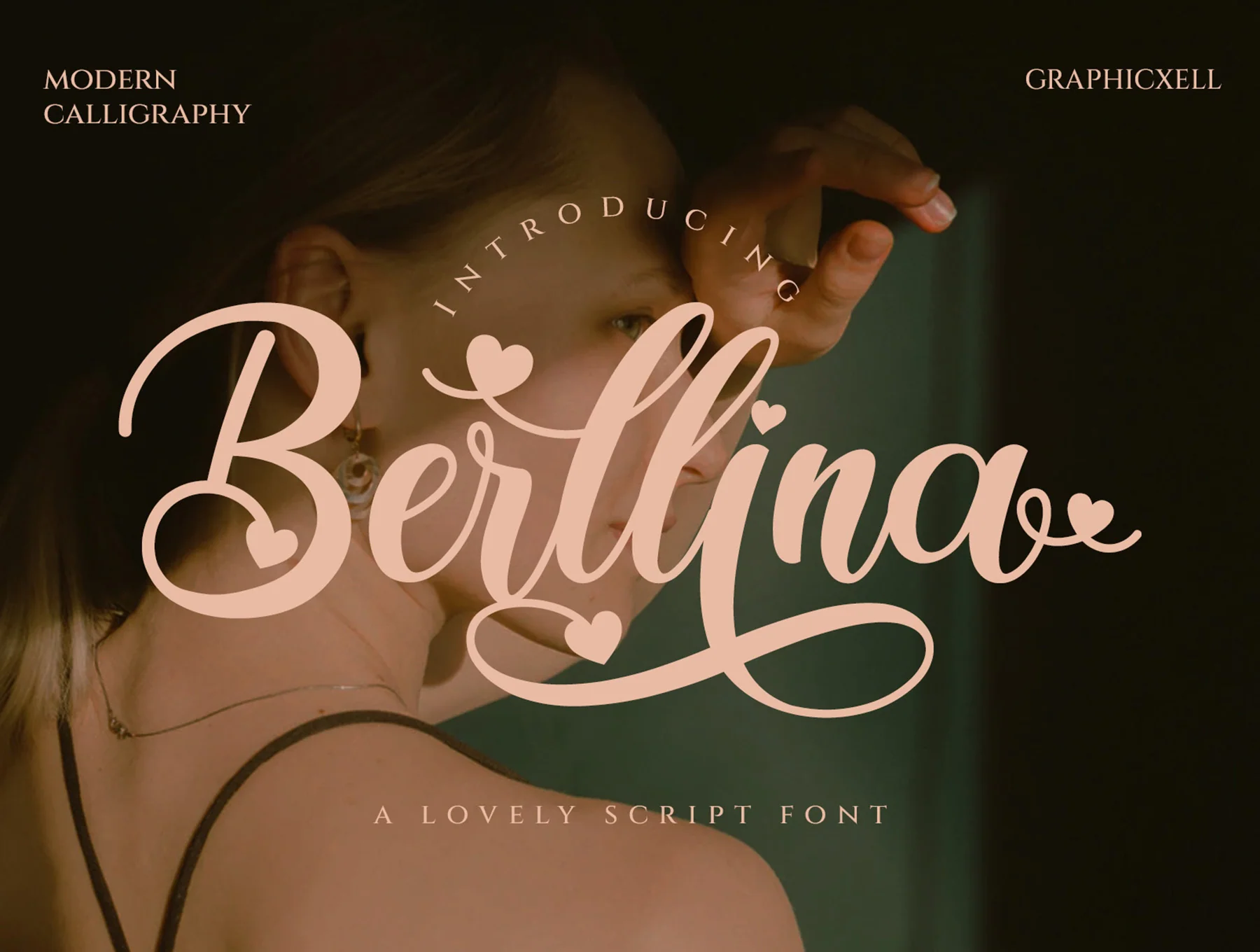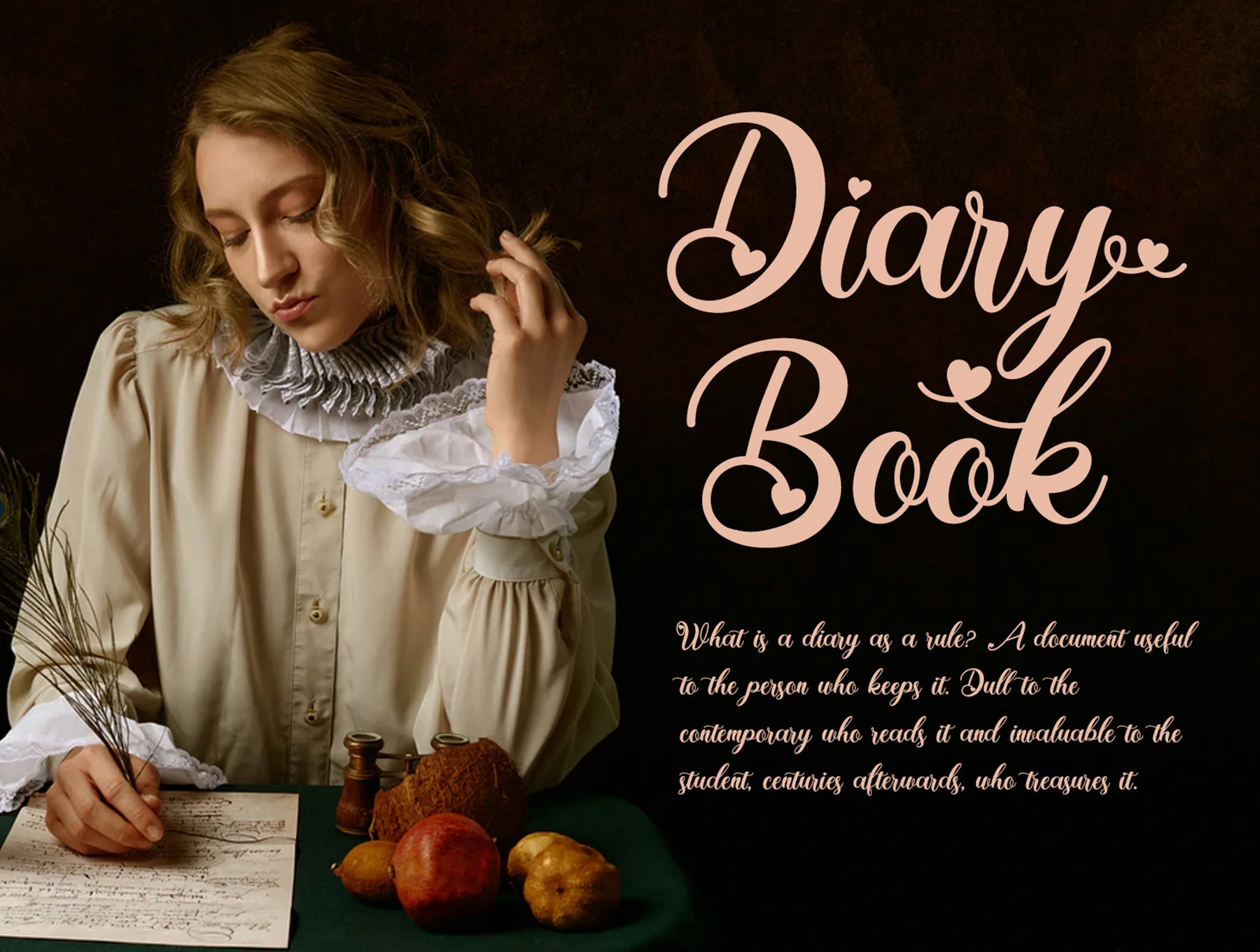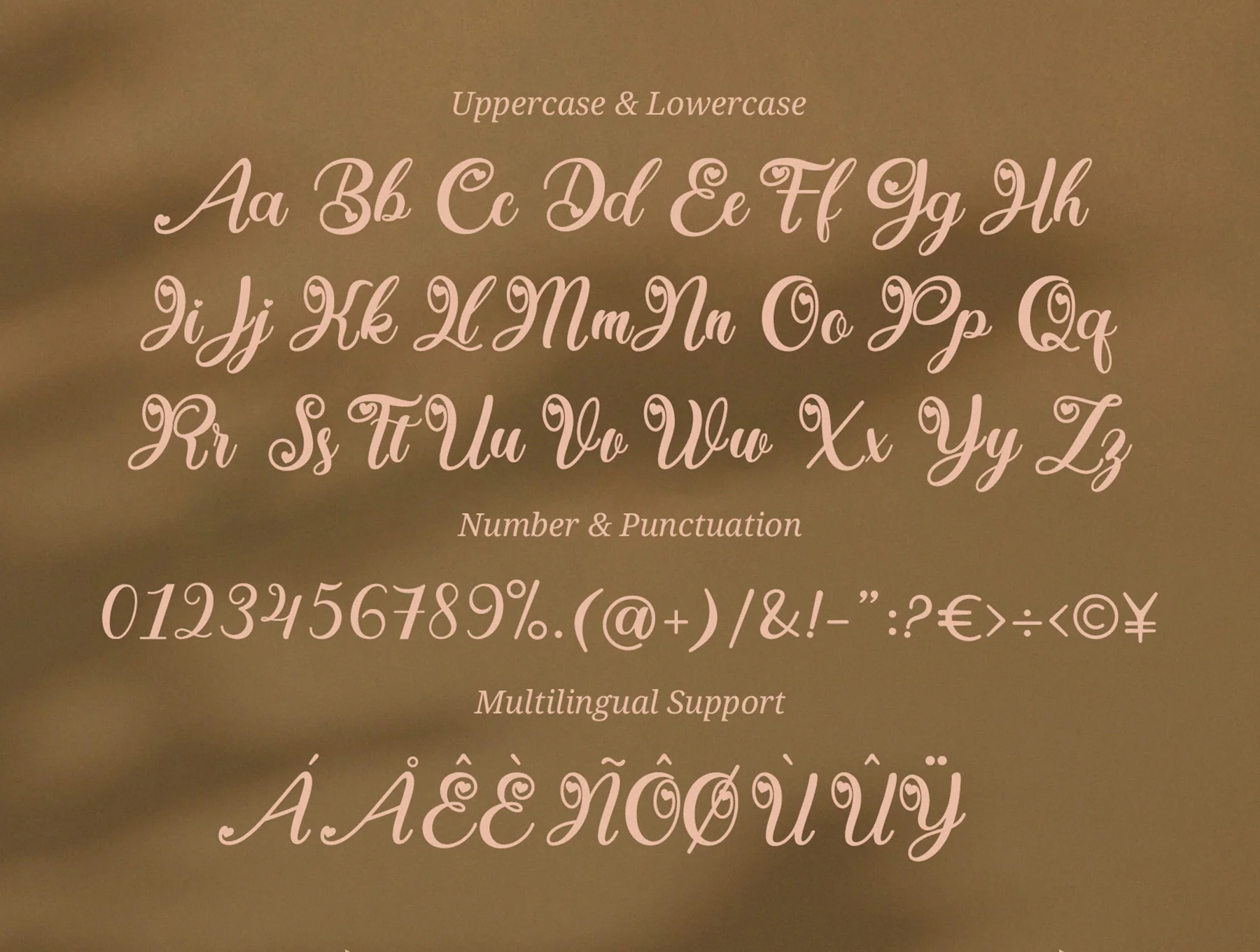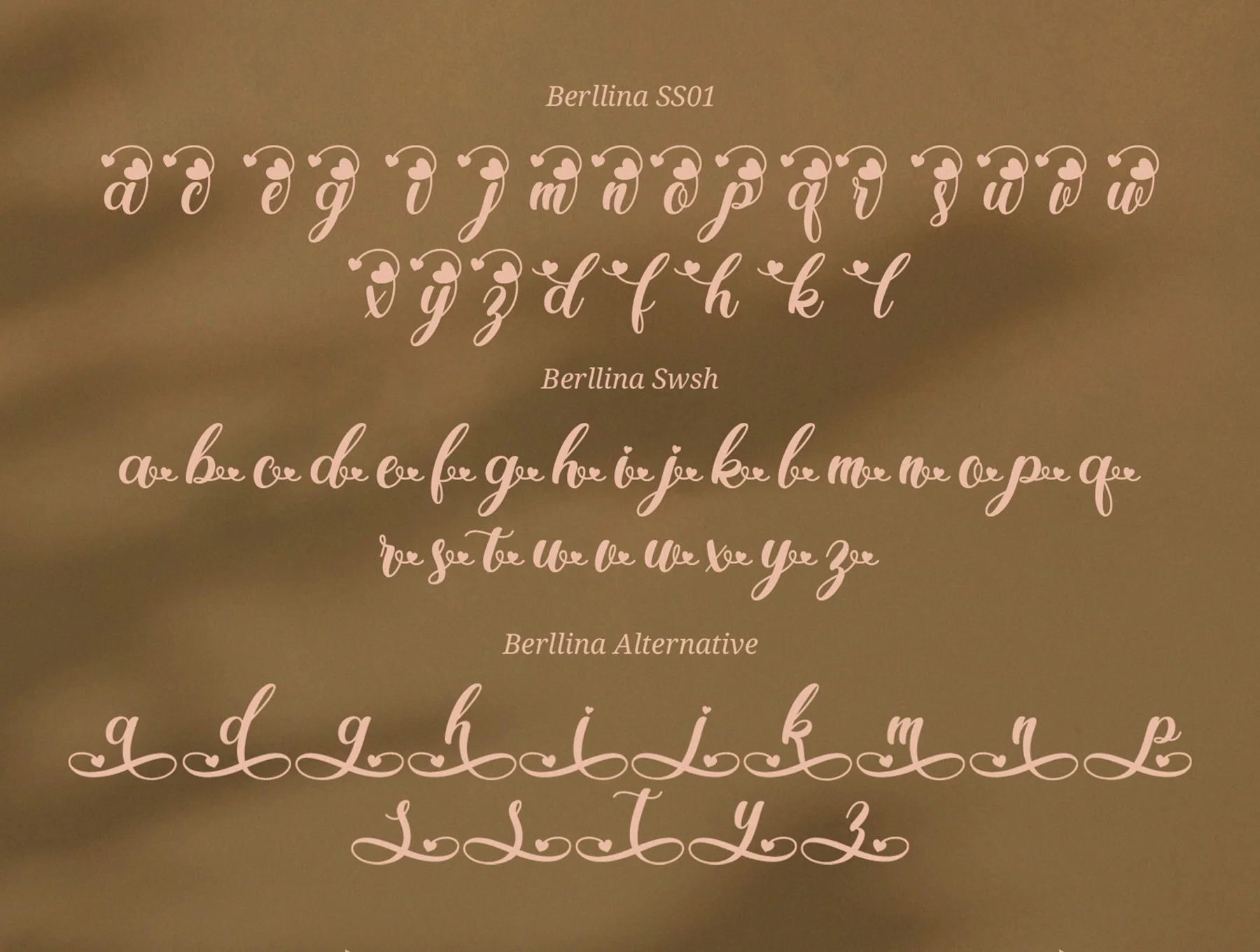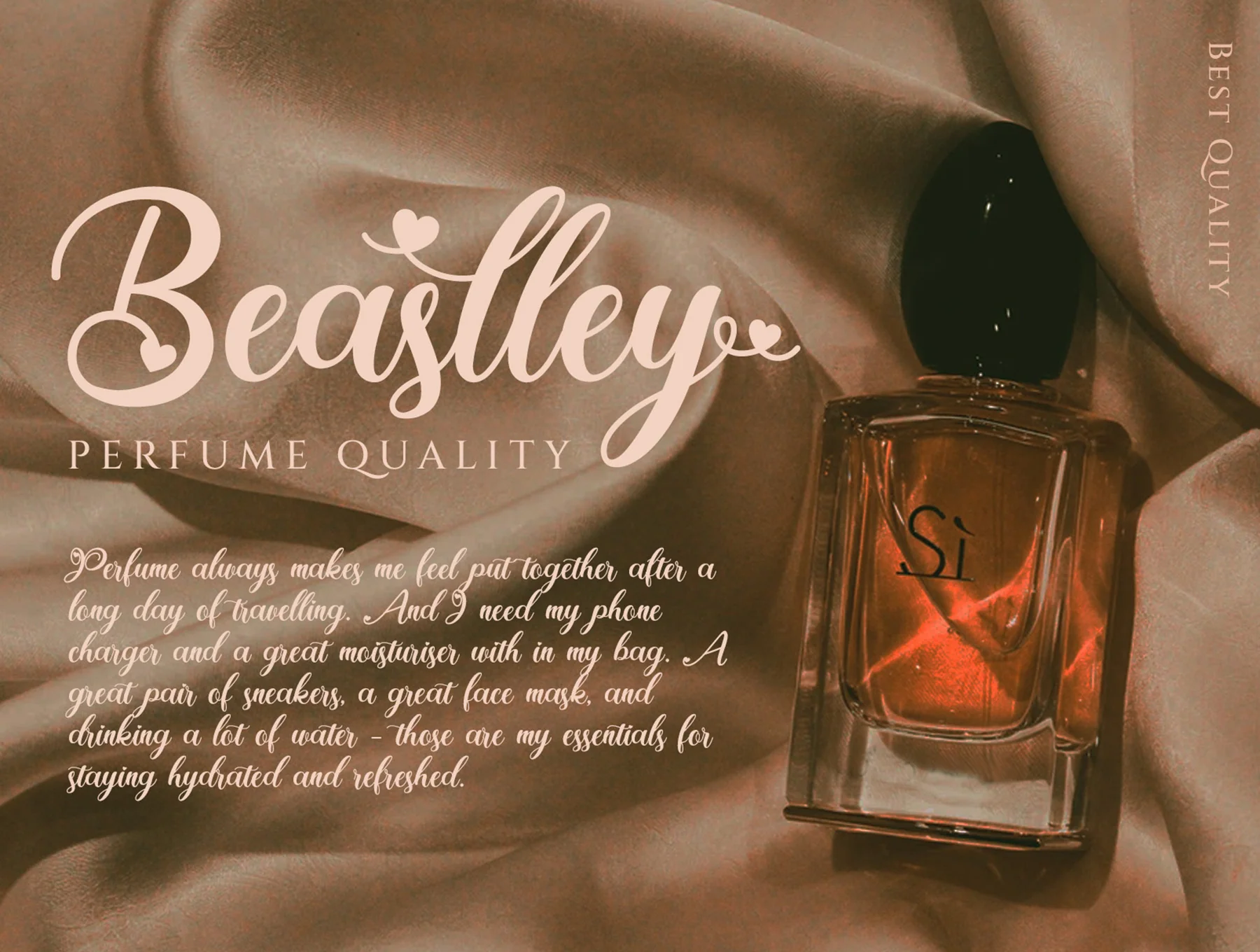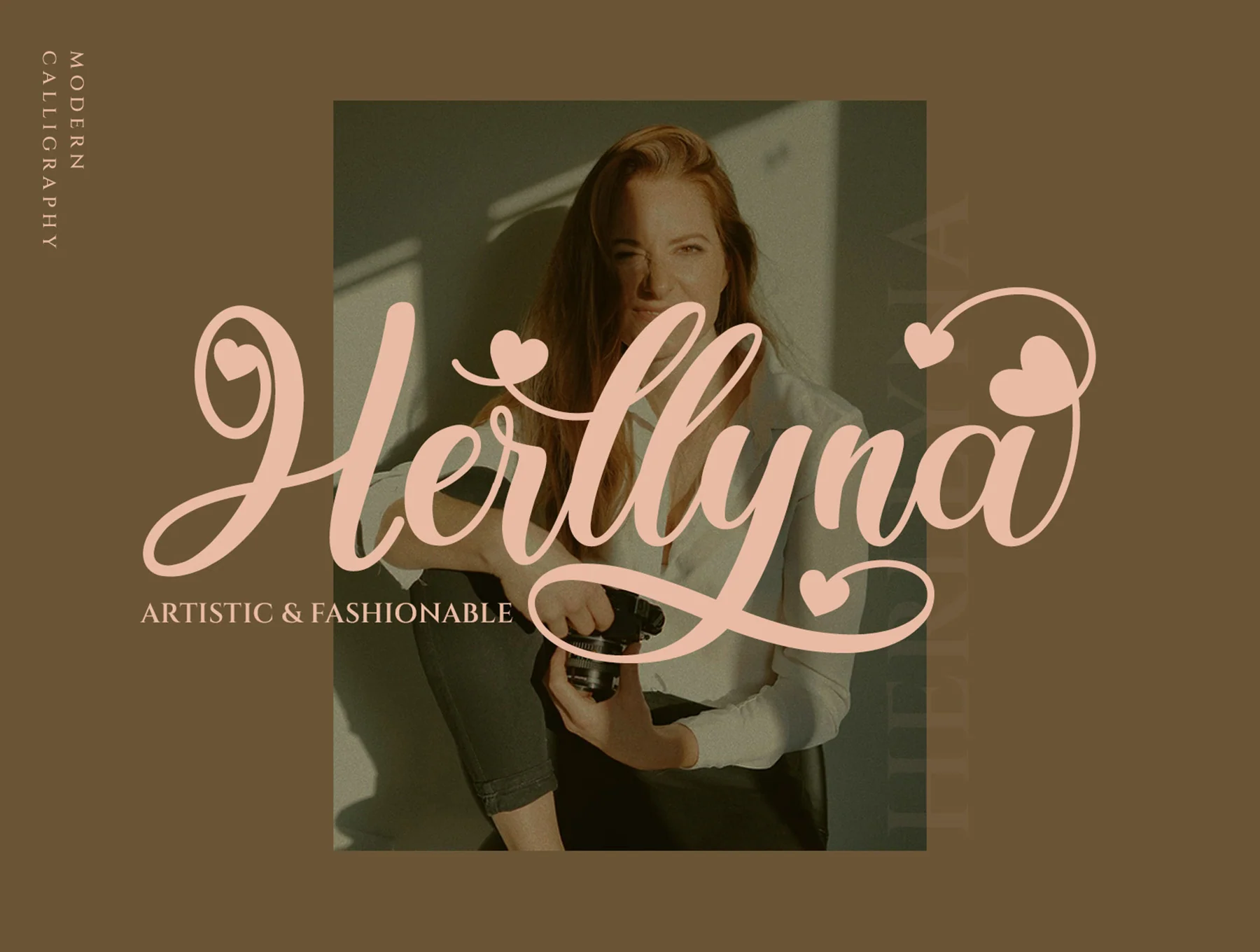
Berllina - Script Font
Cursive typeface
Complete uppercase and lowercase alphabet
Multilingual glyphs, numbers, and punctuation
Ligatures and alternate characters
Berllina is a contemporary script typeface suited for invitations, weddings, birthdays, fashion, beauty, salons, packaging, quotes, crafts, labels, photography, watermarks, T-shirts, logos, and branding. OpenType features work in compatible apps like Adobe InDesign, Illustrator, Photoshop CC, and CorelDRAW. Includes OTF, TTF, and WOFF files.